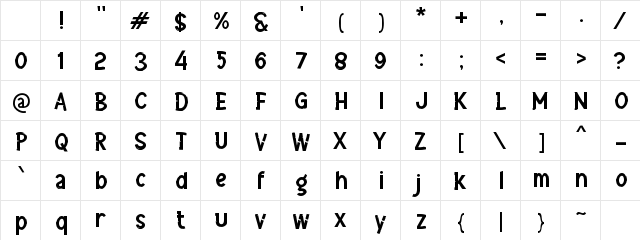
Complete j Julukan Regular glyph index. Displaying only characters natively supported by j Julukan Regular font.
j Julukan is a composed and adaptable typeface that performs quietly and consistently across a wide range of design contexts.